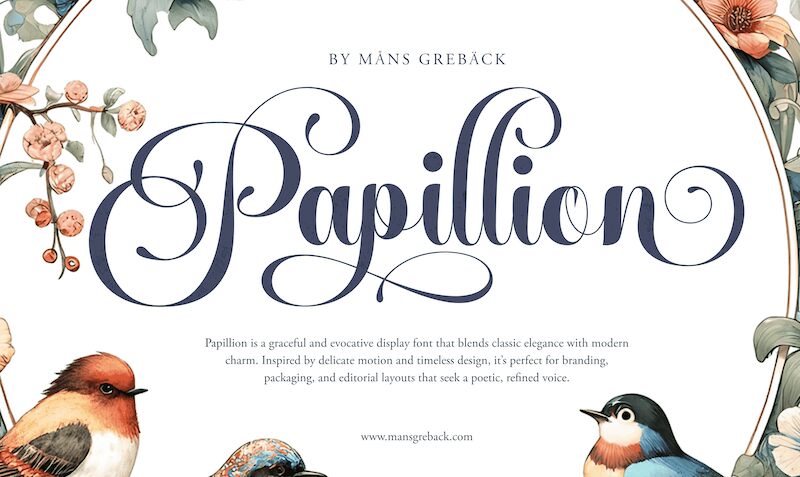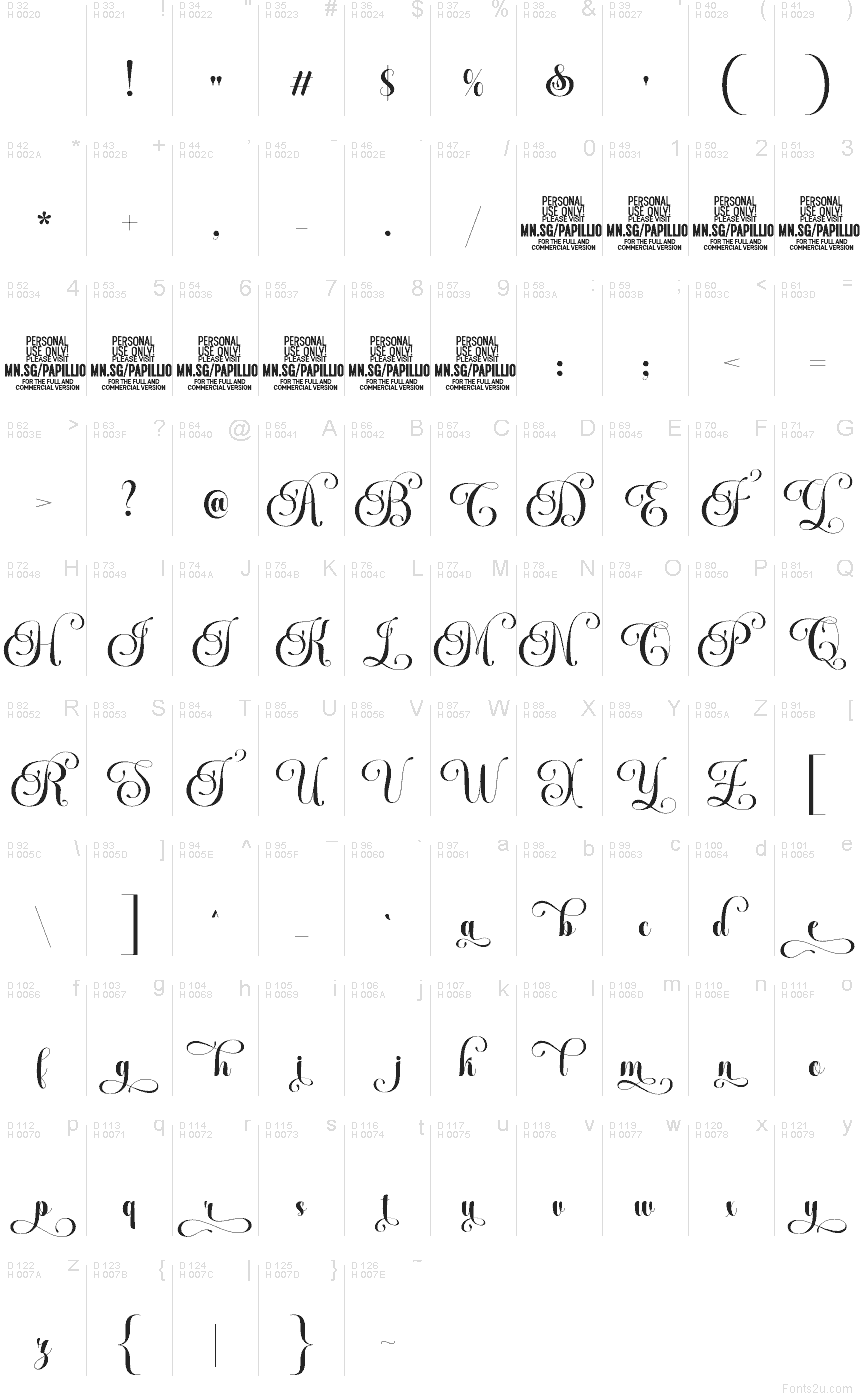
Papillion Swashed PERSONAL Regular
Papillion Swashed font by Mans Greback is a free calligraphy typeface that turns every word into a piece of theater. The Papillion family’s signature flourishes curl and loop like butterfly wings, creating a sense of motion even on a still page. Thick, inky strokes anchor the letters, while the long, sweeping swashes feel airy and ornamental, giving your titles a lush, Parisian sense of drama.
Using Papillion Swashed, short phrases become luxurious centerpieces, so it shines on wedding invitations, perfume or cosmetics branding, event posters, menus for fine dining, book covers, and certificate headlines. This free font works best when given room to breathe—set it large and pair it with a simple sans serif for body text to keep the elaborate curves crisp, legible, and unmistakably elegant.